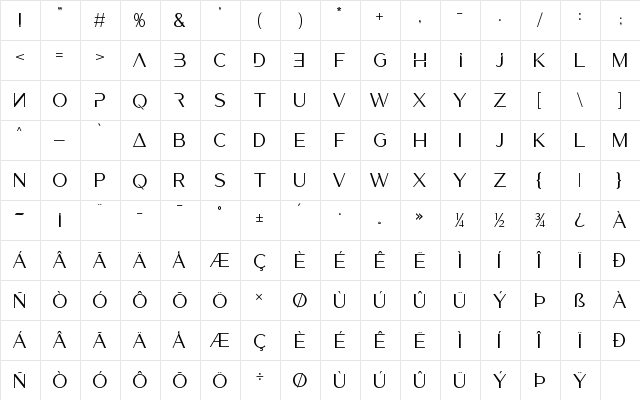
Luxerie Display Regular
| Designer | Malik Wisnu -MLKWSN 2019 |
Design Context for Luxerie Display Typeface
Luxerie Display is built around its visual character rather than neutral utility — its distinctive forms are designed to make an impression at display sizes.
Font Pairing: Pair with a clean neutral sans-serif for body copy to let Luxerie Display's character lead without overwhelming the composition.
Pro Tip: Use Luxerie Display exclusively at display sizes — it was designed to be seen, not read at length. Let a neutral companion handle body copy.